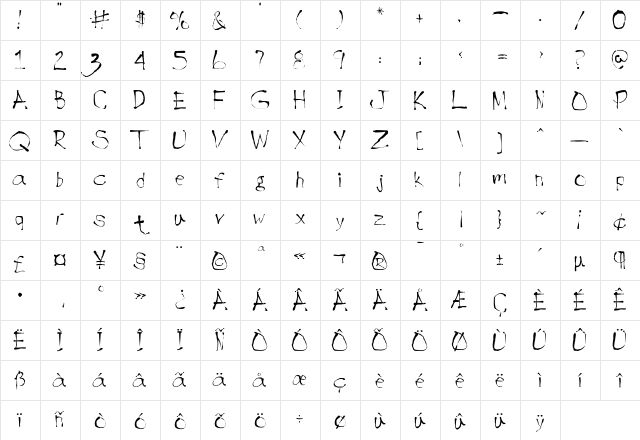
Handwrite Inkblot Free Font
Handwrite Inkblot
Style: Inkblot
Complete Handwrite Inkblot glyph index. Displaying only characters natively supported by Handwrite Inkblot font.
Design Context for Handwrite
Handwrite flows with the natural rhythm of handwritten lettering, making it ideal for designs that call for warmth and personal expression.
Font Pairing: Combine Handwrite with a simple geometric sans for maximum contrast - the tension between flowing curves and clean structure is a classic typographic pairing.
Pro Tip: Use Handwrite for short runs of text - names, titles, or taglines. Extended body copy in script faces tires the eye quickly.